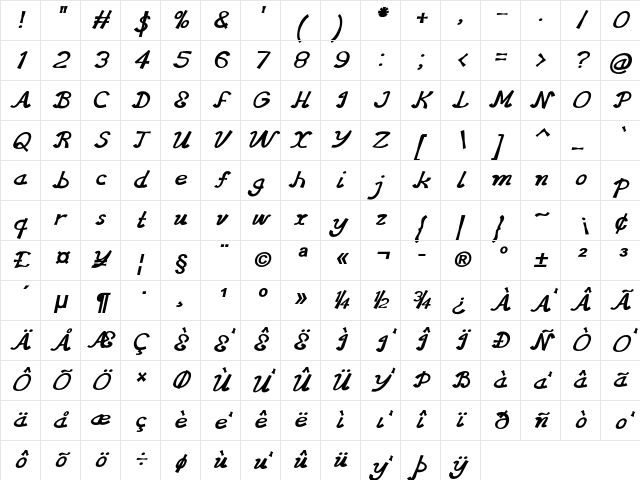
Wonkie Bold Italic
Wonkie Family
Design Context for Wonkie
Wonkie is a composed and adaptable typeface that performs quietly and consistently across a wide range of design contexts. The slanted form adds forward momentum and visual energy. Its bold stroke weight gives it real presence on the page.
Pro Tip: Use Wonkie for emphasis, pull quotes, and subheadings where its slanted energy can add rhythm to the layout.